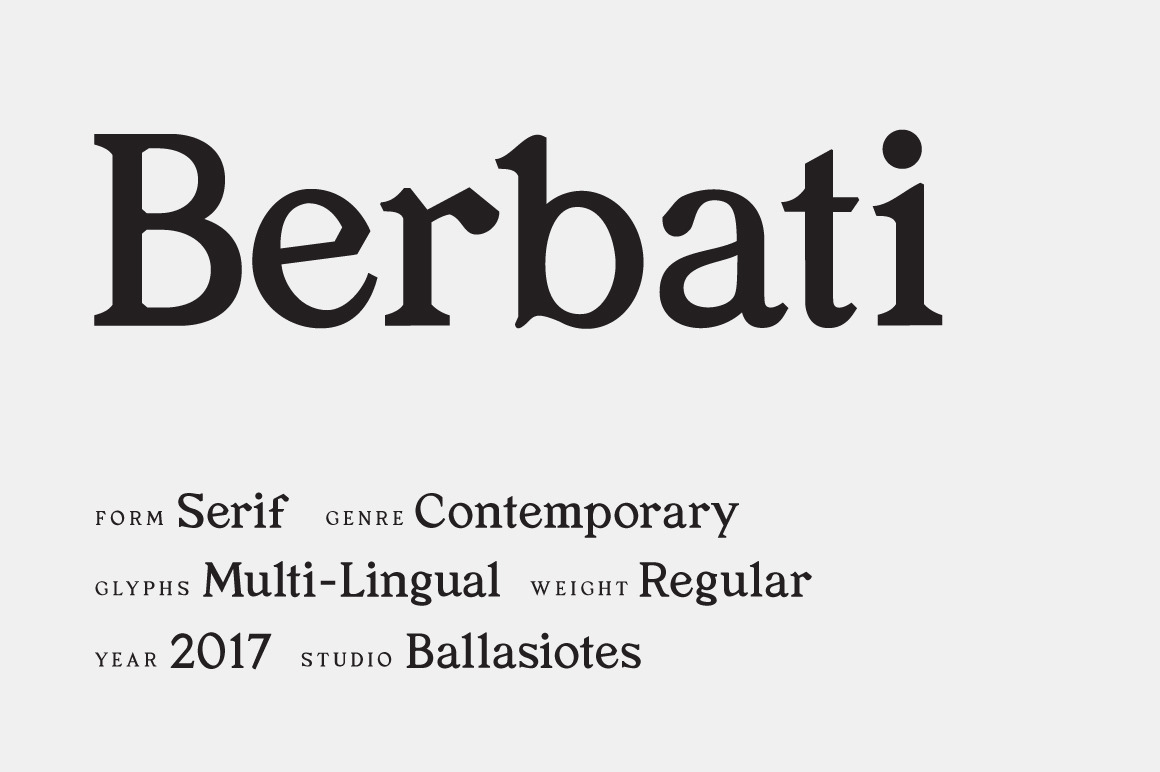
Berbati Regular Serif Font
Berbati is a contemporary serif typeface inspired by old-world forms. Sharp edges and experimental accents make this font a perfect workhorse for any type collection. Released in 2017 for Studio Ballasiotes.